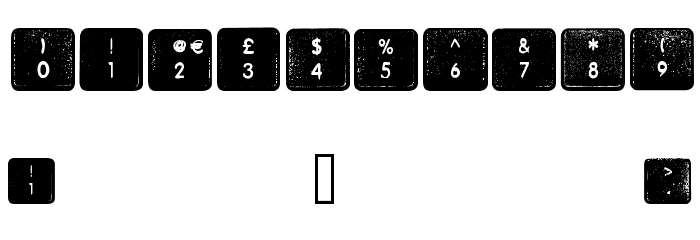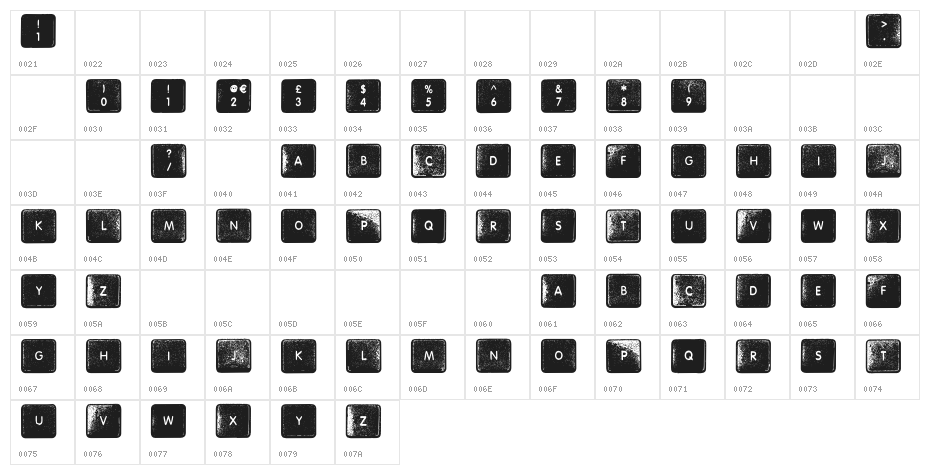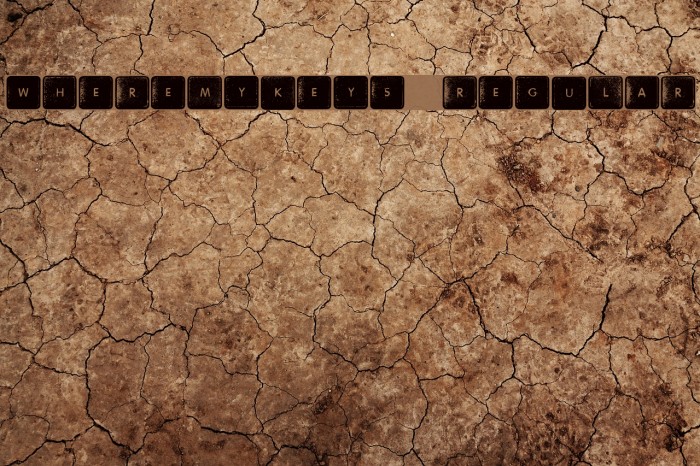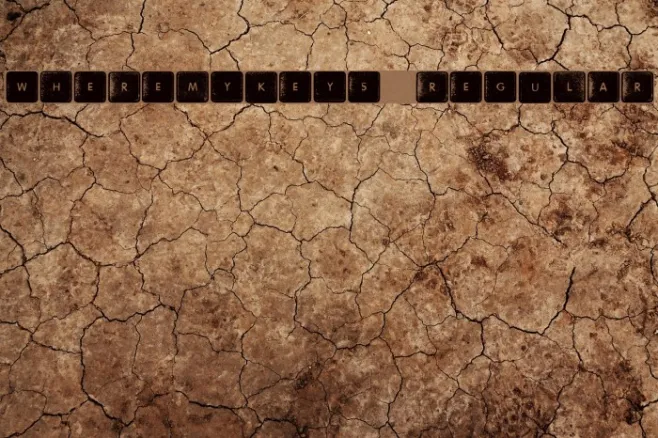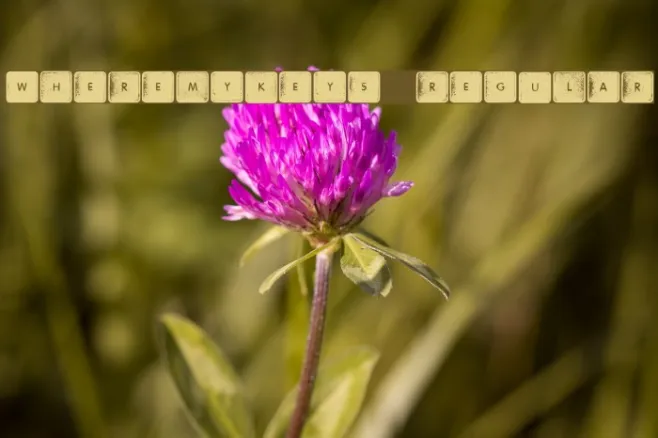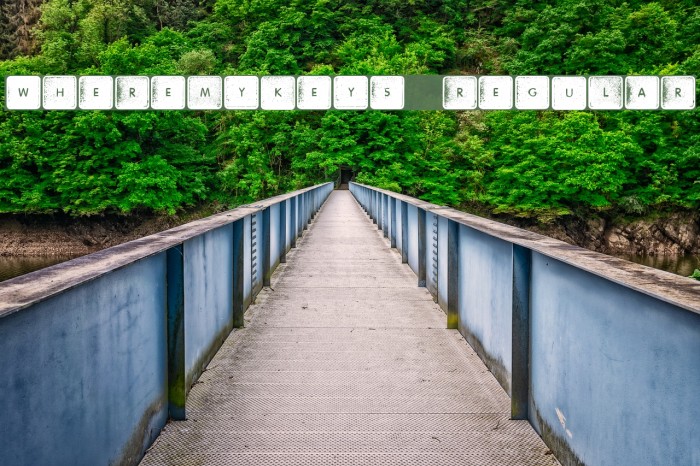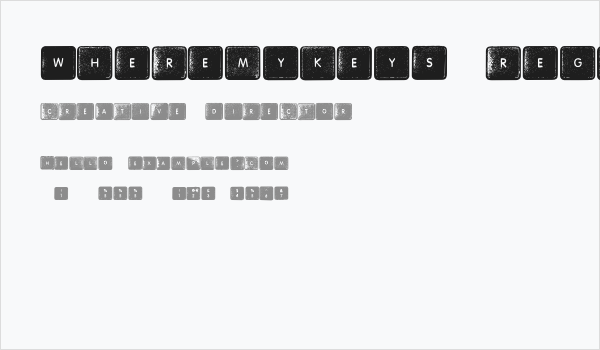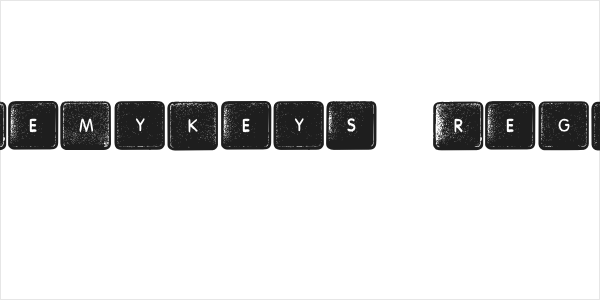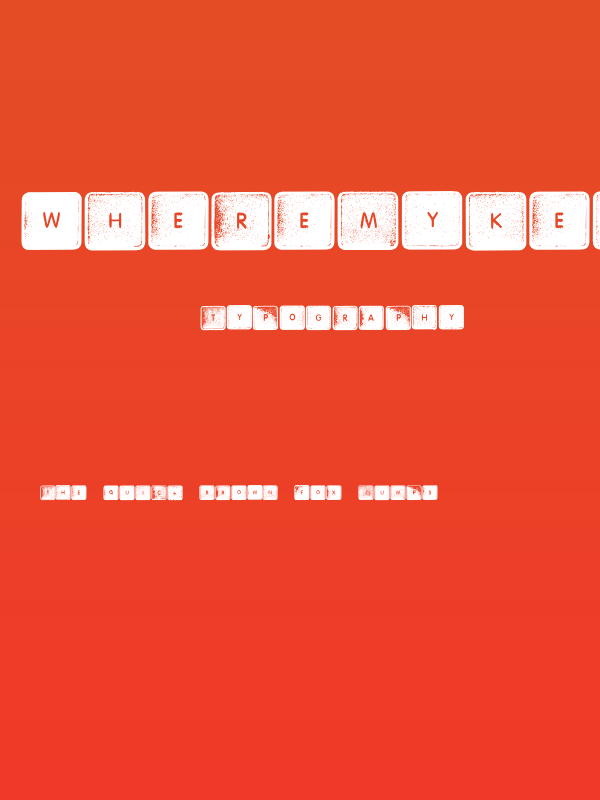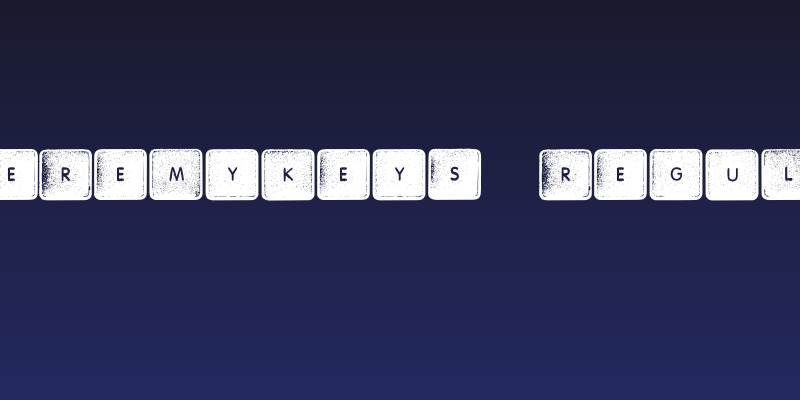
Wheremykeys-Regular Font
Wheremykeys-Regular Description
This font features a unique, distressed style reminiscent of vintage typewriter keys. Each character is enclosed within a square, simulating the appearance of old keyboard buttons. The letters and numbers are bold and have a slightly worn texture, giving them a rustic and nostalgic feel. The characters are evenly spaced within their squares, maintaining a consistent alignment. This design evokes a sense of retro technology, making it ideal for projects that require a touch of antiquity or a mechanical aesthetic.
| Proposed Projects | Ideal for retro-themed designs, vintage posters, steampunk projects, or any creative work that requires an old-fashioned, mechanical look. |